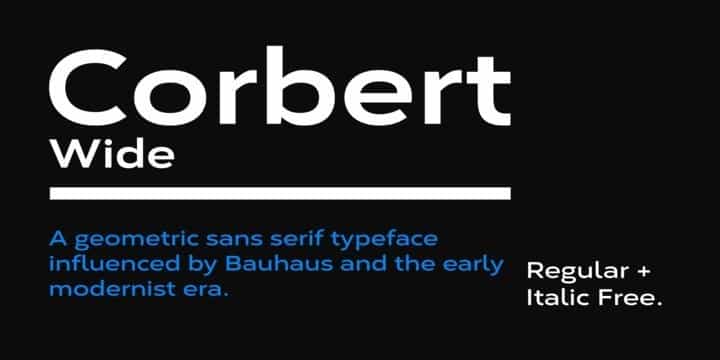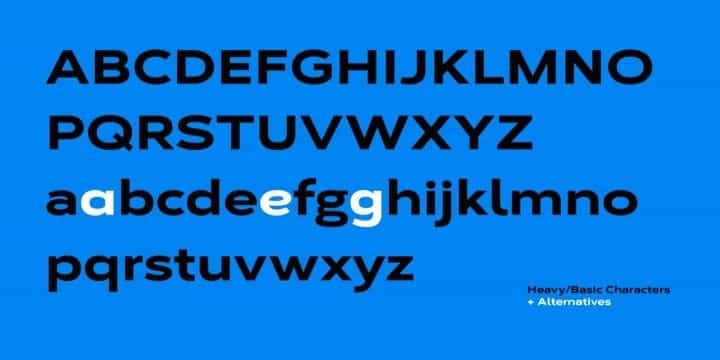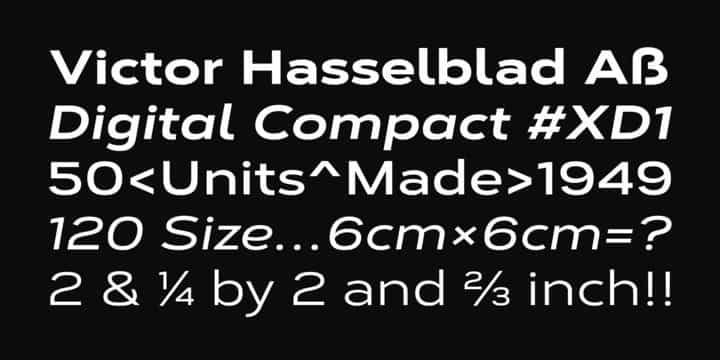
Inspired by Bauhaus and the eras geometric sans serif typeface influences Corbert boasts precise shapes meticulously adjusted for optimal legibility. This regular yet self evident design works seamlessly across applications. This versatile typeface includes nine weights with corresponding italics and an extensive character set of over 540 characters, per style.